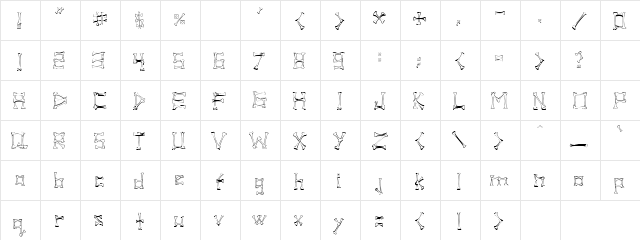
Bamboo Alphs Regular
Design Context for Bamboo Alphs Typeface
Bamboo Alphs is a composed and adaptable typeface that performs quietly and consistently across a wide range of design contexts.
Pro Tip: Use Bamboo Alphs in both headline and body roles to test its range before committing to a single application.